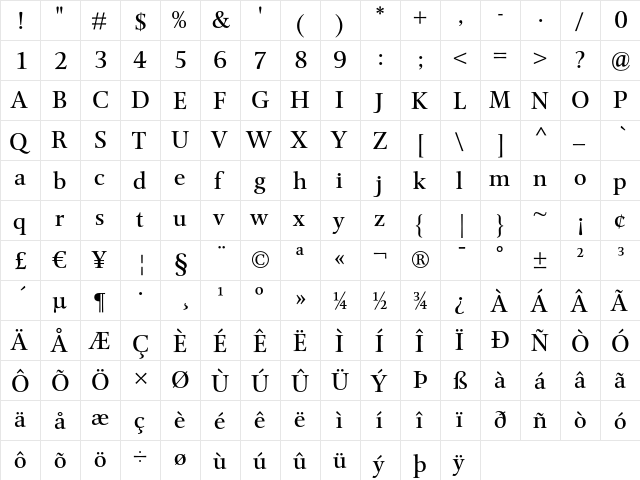
Mentor Regular
Design Context for Mentor Typeface
Mentor takes a measured approach to typography — its balanced proportions and neutral character make it a reliable workhorse for both digital and print work.
Pro Tip: Use Mentor in both headline and body roles to test its range before committing to a single application.